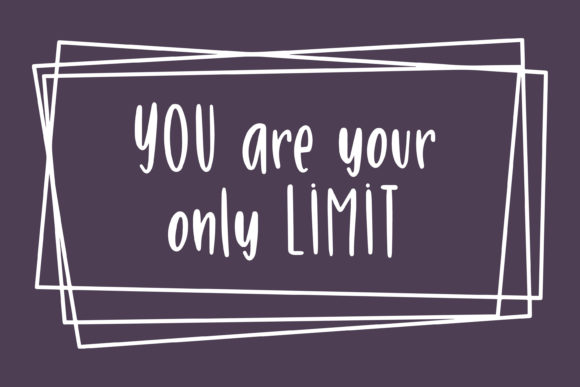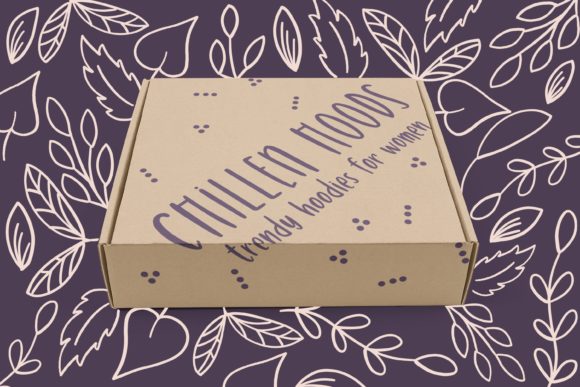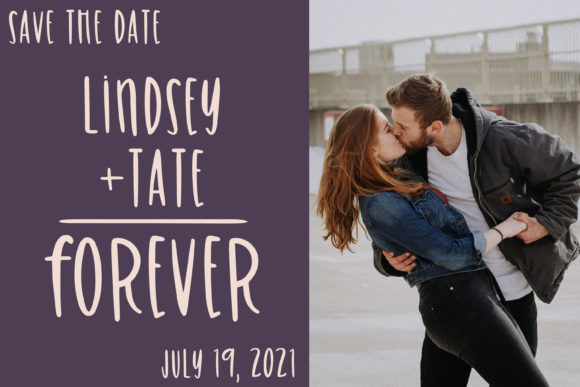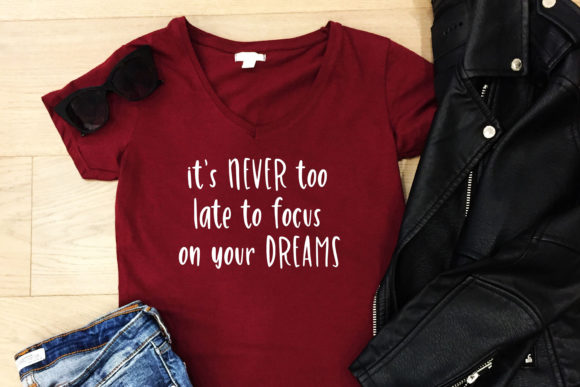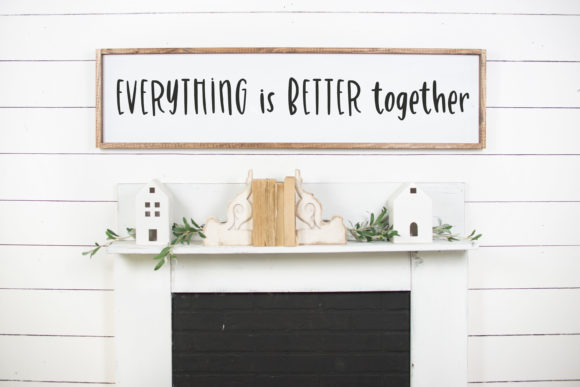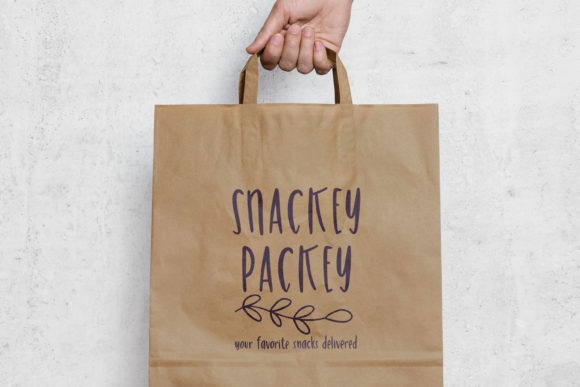
The Ever Lust Font: A Refreshing Addition to Your Design Arsenal
I’ll never forget the time I was working on a project for a client who wanted a fun, laid-back vibe for their branding. I spent hours scouring the internet for the perfect font, but nothing seemed quite right. That was until I stumbled upon the Ever Lust font. It was like a breath of fresh air – relaxed, informal, and friendly, with a beautiful, refreshing look that perfectly captured the essence of my client’s brand.
An Honest Review of Ever Lust
- ✨ The casual, handwritten feel of Ever Lust makes it perfect for designs that need a personal touch.
- ✅ The font is highly legible, even at smaller sizes, making it versatile for use in various design applications.
- 💫 The unique character set and OpenType features allow for creative experimentation and customization.
While Ever Lust is an excellent font, there are a few things to keep in mind:
- ⚠️ The font may not be suitable for very formal or corporate designs, as it has a distinctly casual feel.
- 🤔 Some users may find the font’s relaxed style too informal for certain projects.
The Story Behind Ever Lust
Ever Lust was designed by a team of creatives who wanted to create a font that captured the essence of a relaxed, casual lifestyle. Inspired by the laid-back vibes of coastal towns and sunny days, the designers crafted a font that would bring a sense of warmth and friendliness to any design.
Q: What is the best use for Ever Lust?
A: Ever Lust is perfect for designs that require a relaxed, casual feel, such as branding, packaging, and social media graphics.
Q: Is Ever Lust suitable for body text?
A: While Ever Lust is legible, it’s best suited for headlines and titles. For body text, consider a font with a more traditional, serif design.